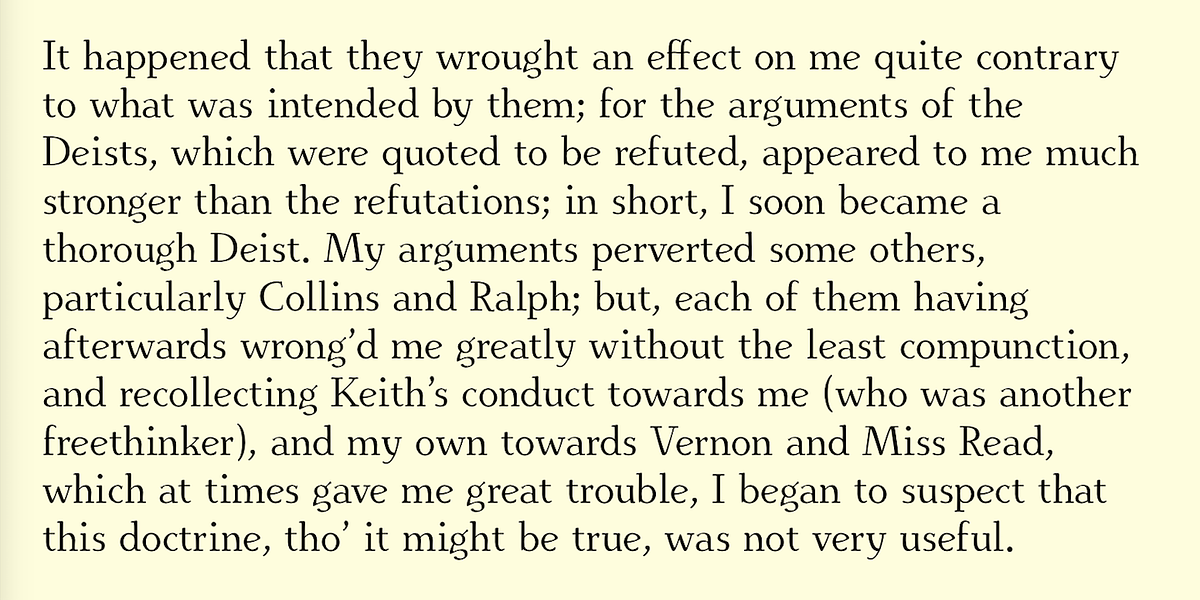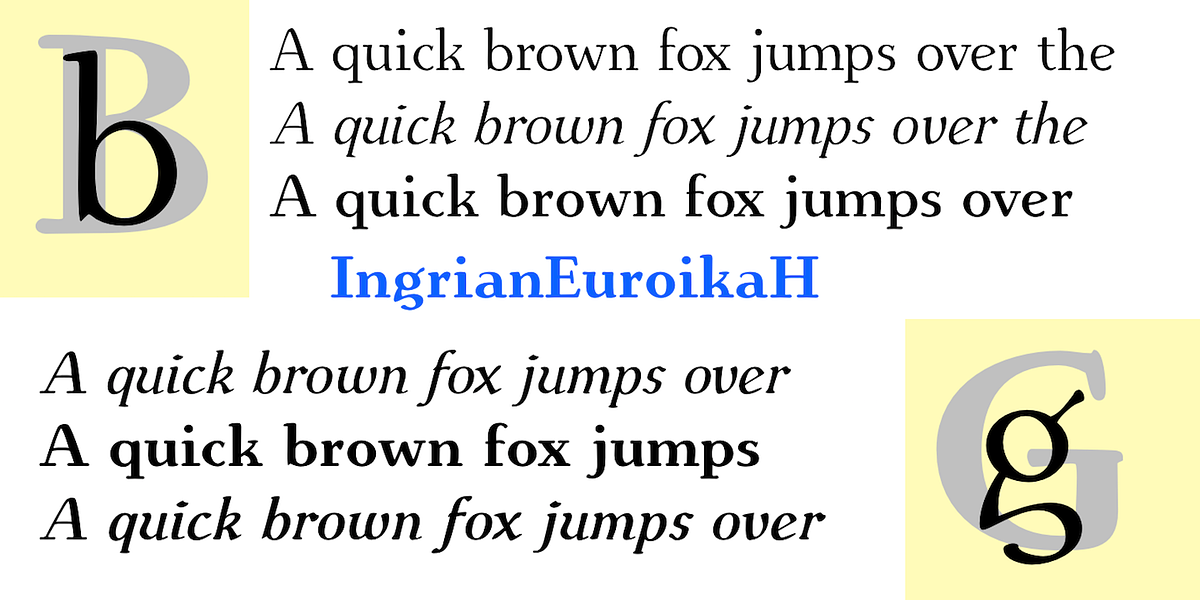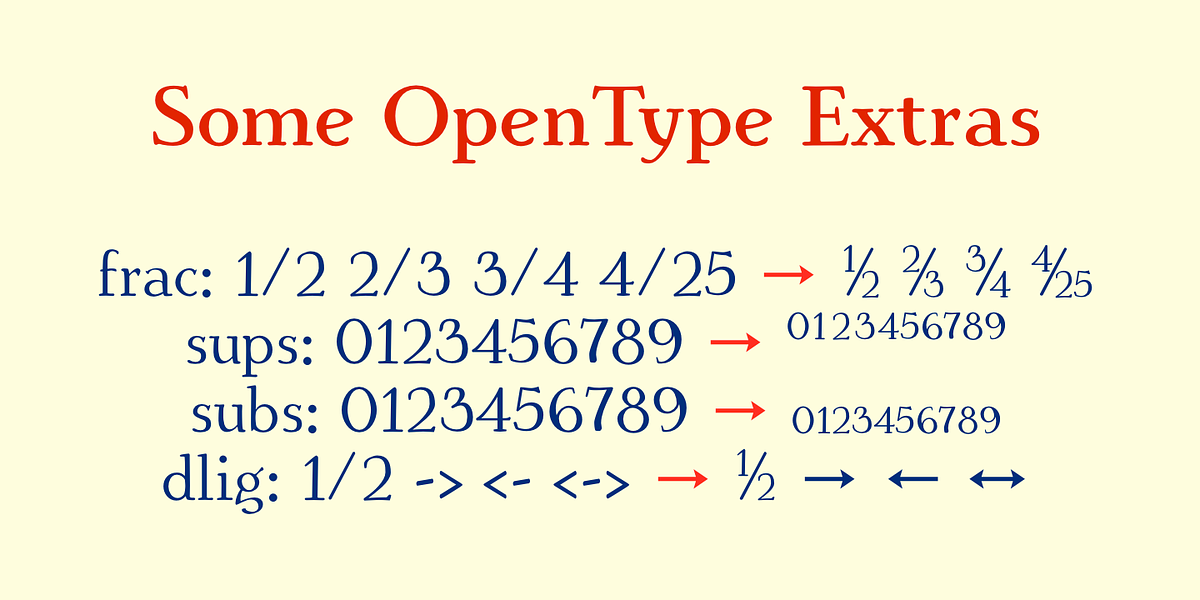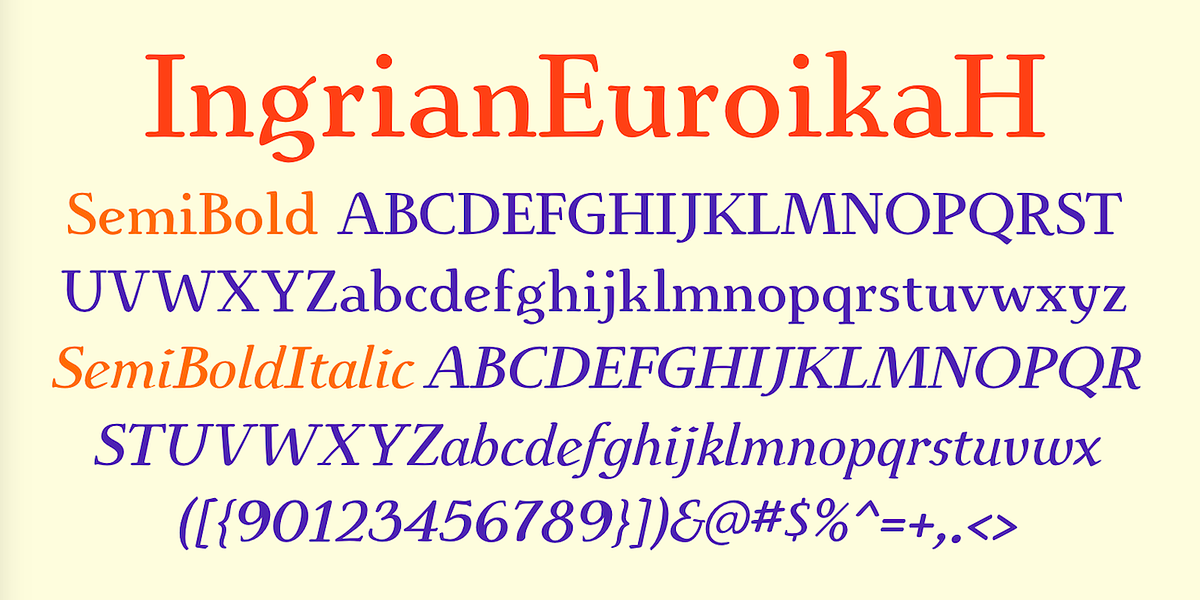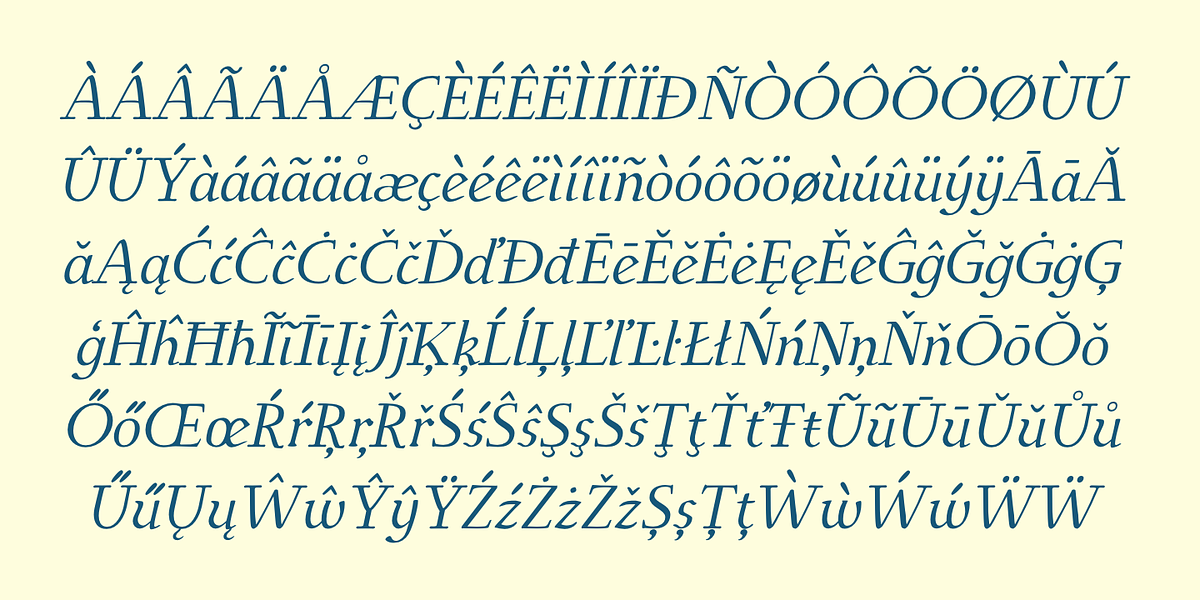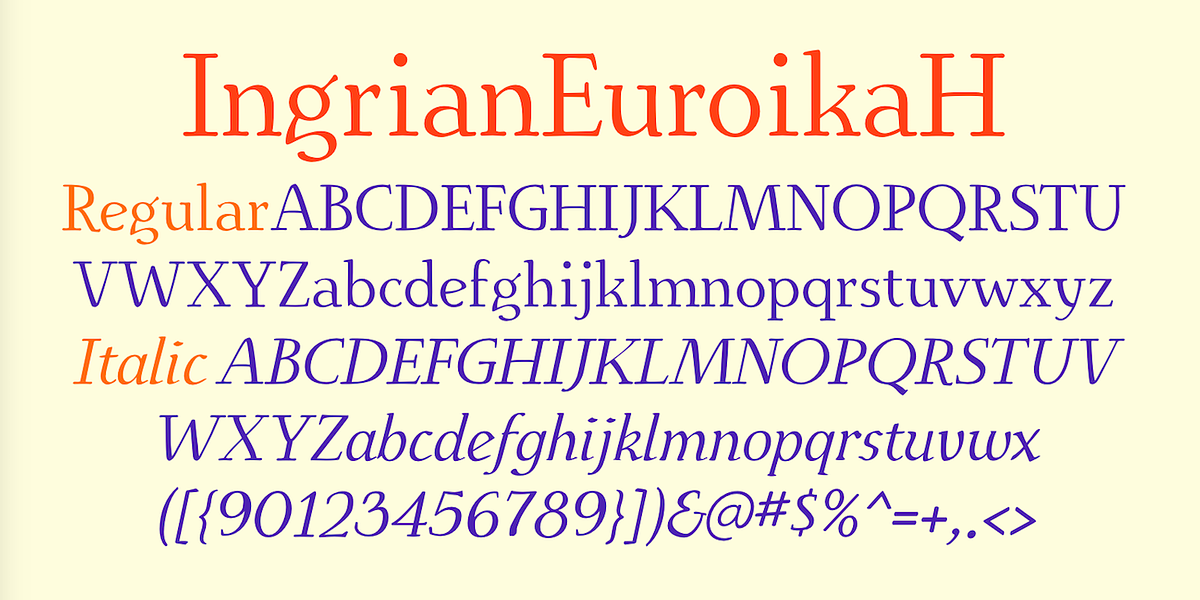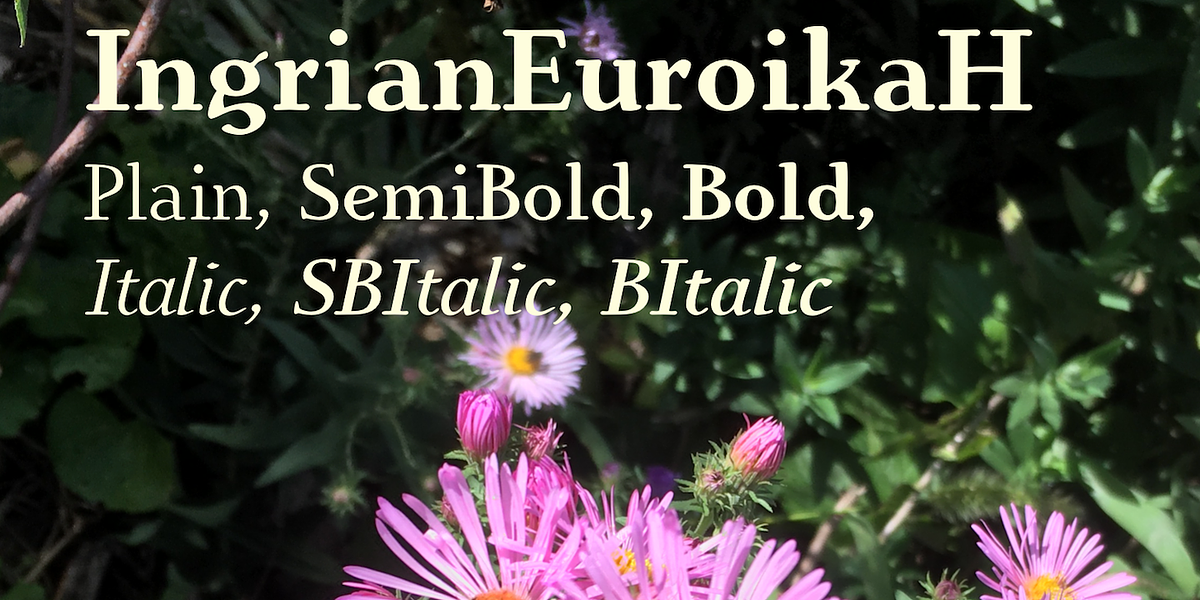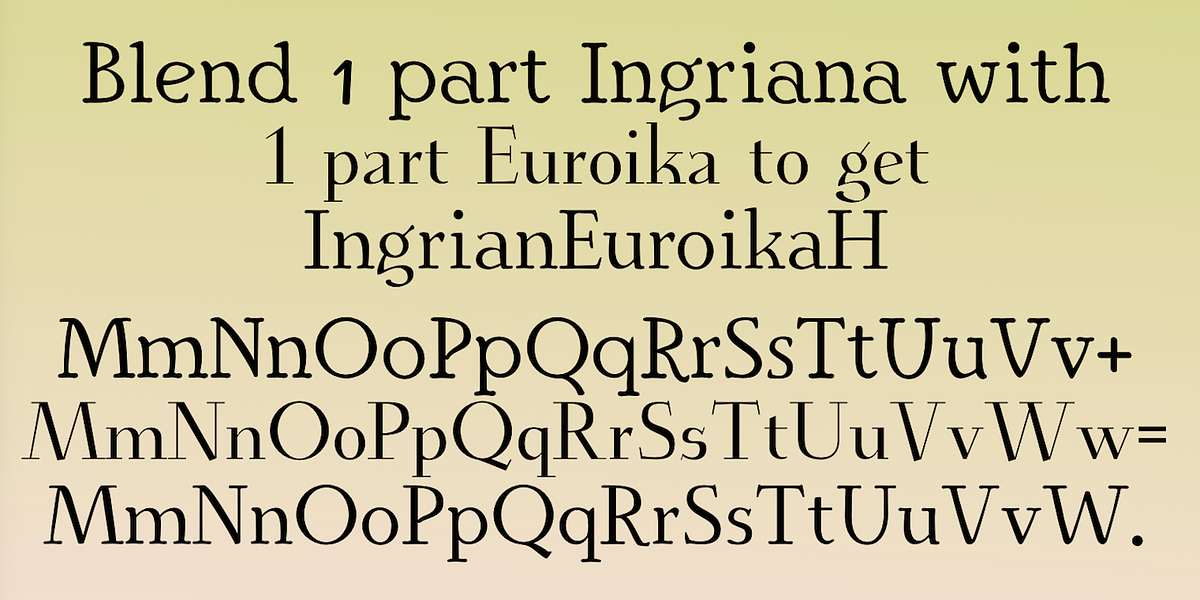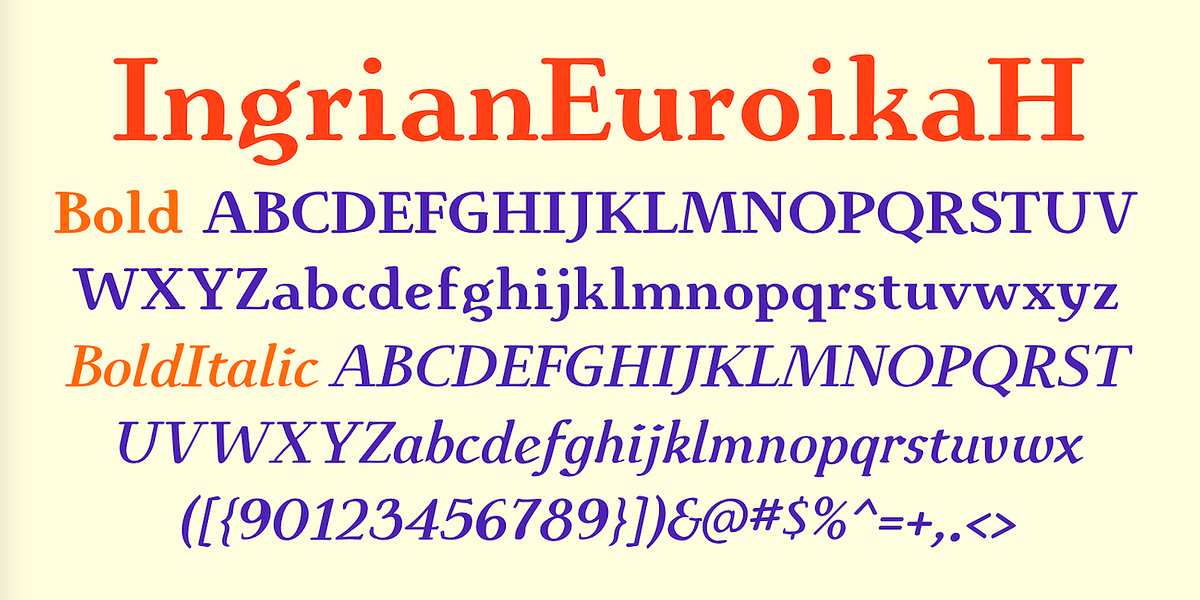
IngrianEuroika
IngrianEuroikaH is a unique serif font created by crossbreeding two distinct typefaces: the decorative Euroika and the informal Ingriana. This hybrid approach resulted in a font with high contrast and rounded serifs, lending it both elegance and readability. The font family offers six styles (regular, semibold, bold, italic, semibold italic, and bold italic), making it versatile for various text and display applications.